Dawn of War Font
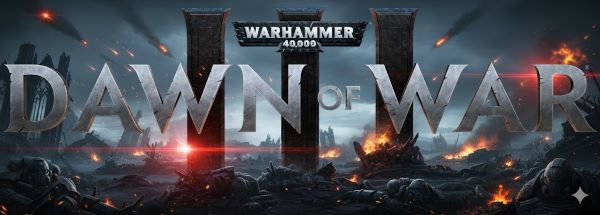
What is The Font Of Dawn of War?
The Dawn of War Font is most likely Felina Gothic, the typeface used in the game’s box art and title branding. Felina Gothic is a decorative display font available from T-26, featuring sharp edges, angular cuts, and a heavy structure. These dramatic visual traits give the title a dark, aggressive, and militaristic appearance that aligns perfectly with the game’s grim sci-fi universe. Felina Gothic is a commercial font, meaning it is not freely available, but similar gothic-style display fonts can be used as free alternatives for fan art and mockup projects.
About Dawn of War
Warhammer 40,000: Dawn of War is a real-time strategy game released in 2004 by Relic Entertainment. Set in the Warhammer 40K universe, it is known for brutal warfare, deep lore, and intense atmosphere. The heavy typography reinforces the franchise’s dark and epic tone.